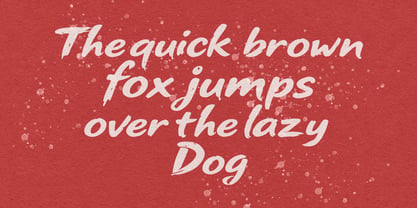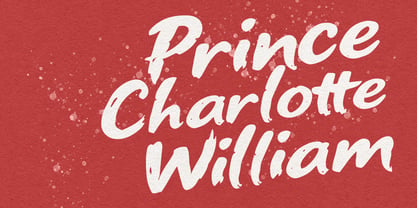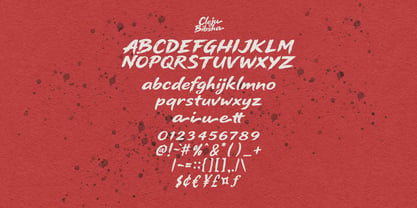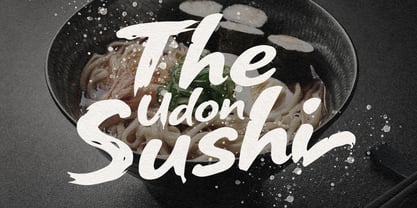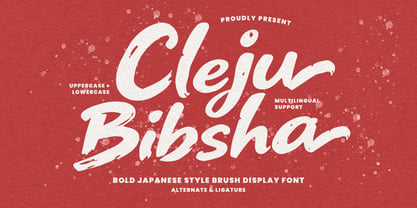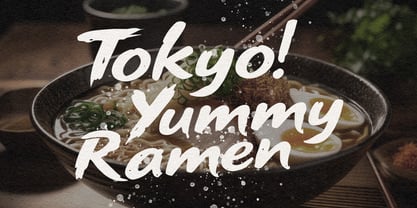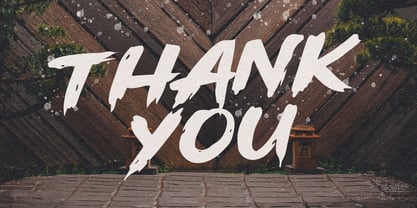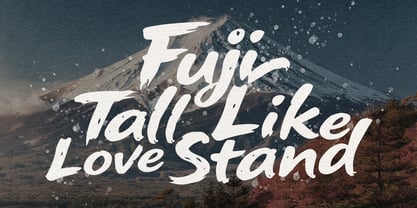
MC Cleju Bibsha
by Maulana Creative
The MC Cleju Bibsha Font Family was designed by Gilang Maulana and published by Maulana Creative. MC Cleju Bibsha contains 1 styles. More about this family
Cleju Bibsha is a powerful and expressive display font inspired by the traditional artistry of Japanese calligraphy. Featuring bold, energetic brushstrokes and a natural dry-ink texture, this font captures the raw essence of hand-painted characters. It is designed to bring a sense of "Bushido" spirit and modern street-style aesthetics to your creative projects. Equipped with uppercase, lowercase, alternates, and ligatures, it offers great versatility for designers. Whether you are working on a high-impact restaurant logo (like Ramen or Sushi shops), martial arts branding, action movie posters, design, or cultural event flyers, Cleju Bibsha provides a striking visual presence that is both authentic and contemporary.
Designers: Gilang Maulana
Foundry: Maulana Creative